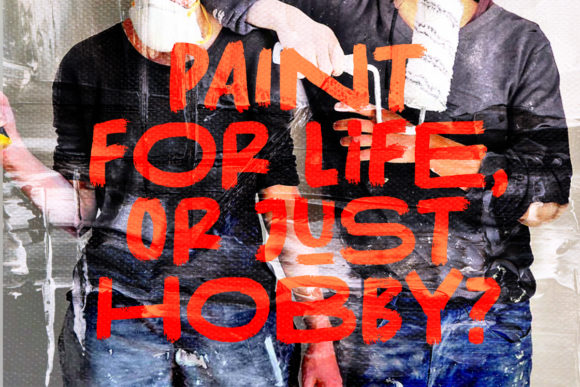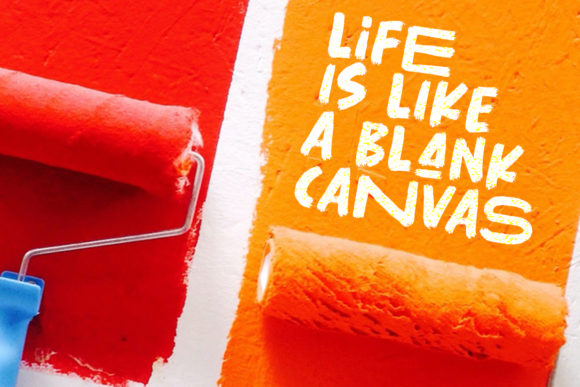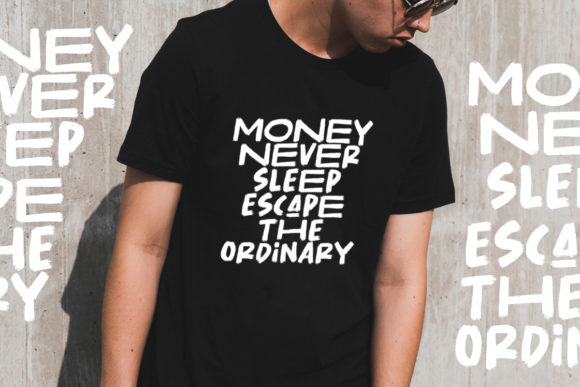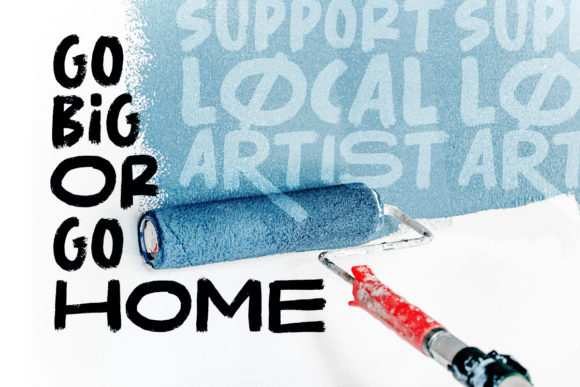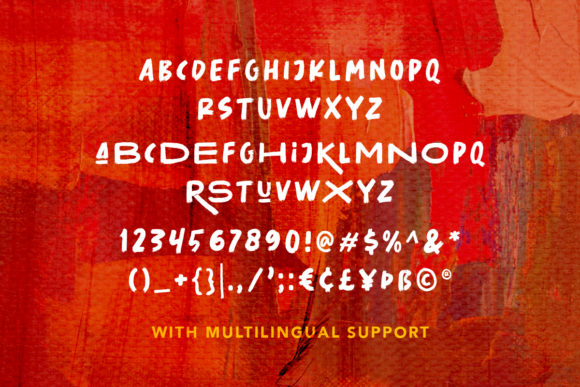
Introduction to Roller Cores Font Font
Fonts play a crucial role in design, and the Roller Cores Font font is a typeface that brings both character and versatility to any project. Whether you’re working on a branding project, a website, or a print design, the Roller Cores Font font offers a unique style that can elevate your work.
Roller Cores is a roller paint inspired script font.
This font is suitable for any project you can think of .
Key Features of Roller Cores Font Font
Why Choose Roller Cores Font Font?
The Roller Cores Font font is more than just a typeface – it’s a design tool that helps you communicate your message with style and clarity. Its unique character set and versatile design make it suitable for a wide range of applications, from elegant invitations to bold headlines.
With its carefully crafted letterforms and balanced proportions, the Roller Cores Font font ensures readability and visual appeal across all mediums.
What makes Roller Cores Font font special?
The Roller Cores Font font stands out with its unique design, exceptional readability, and versatility across various design applications.